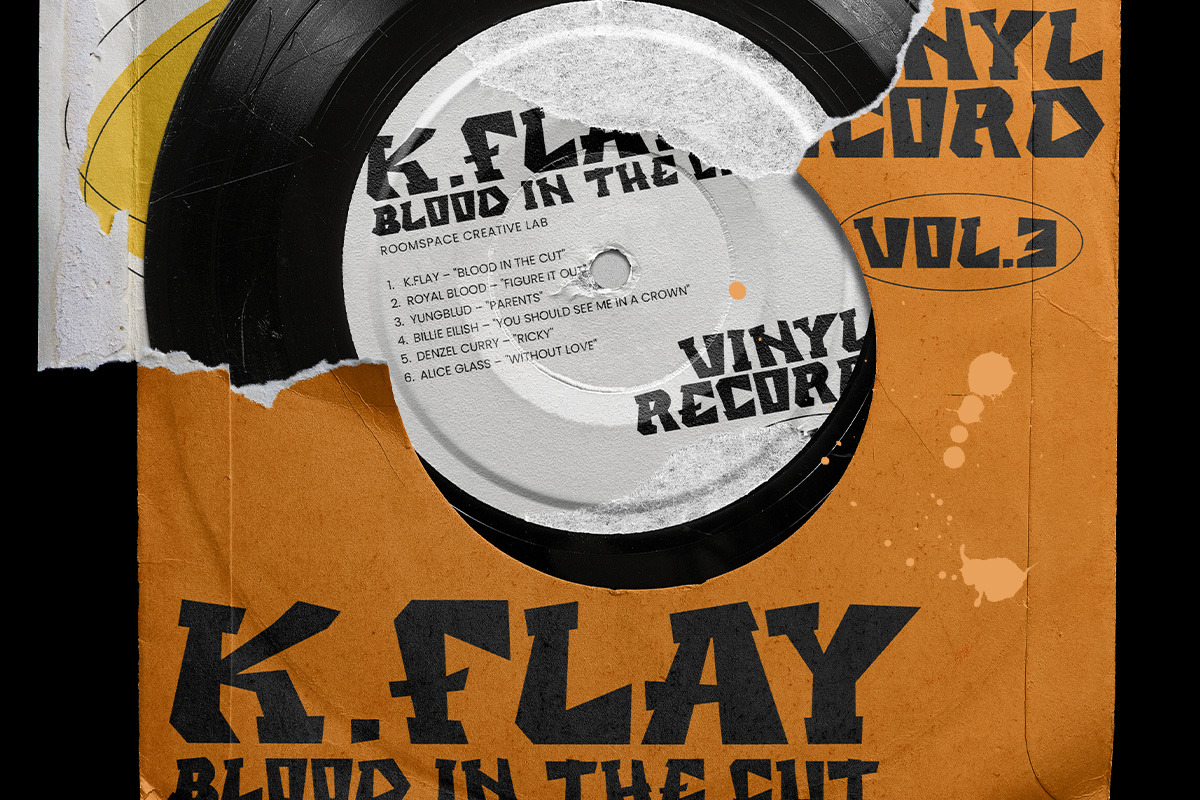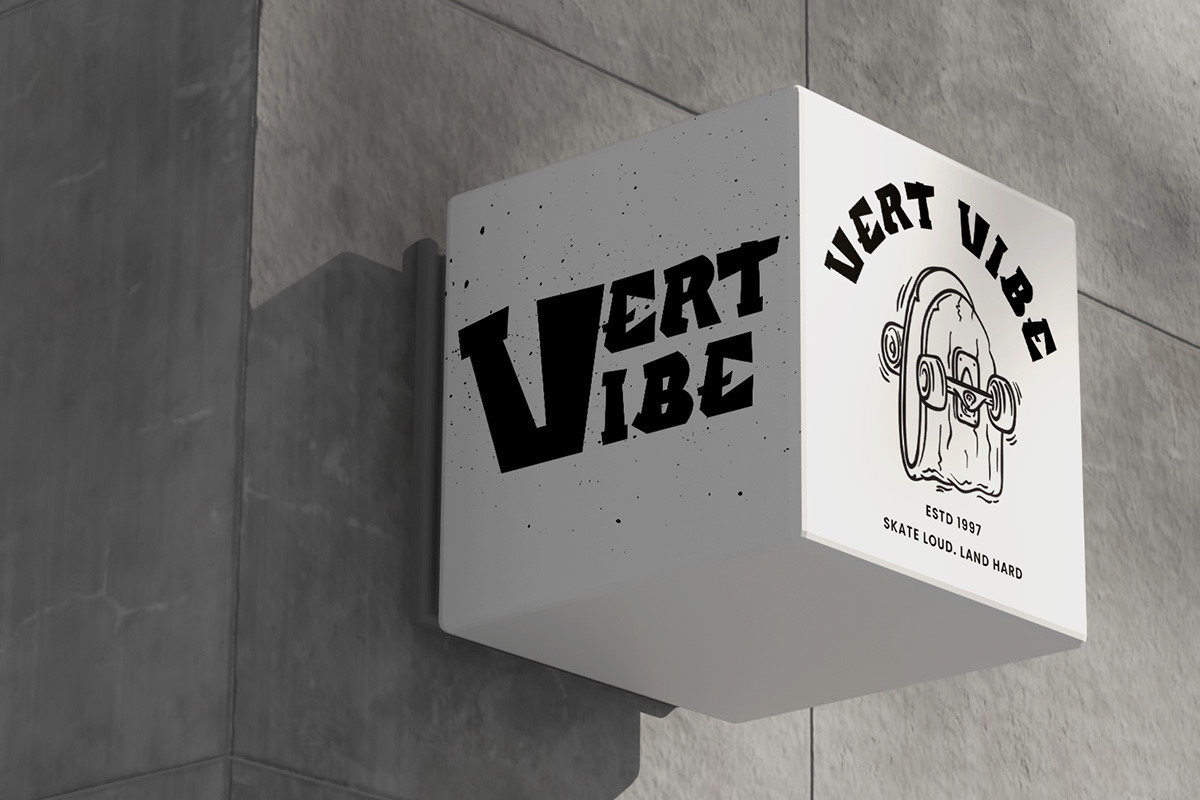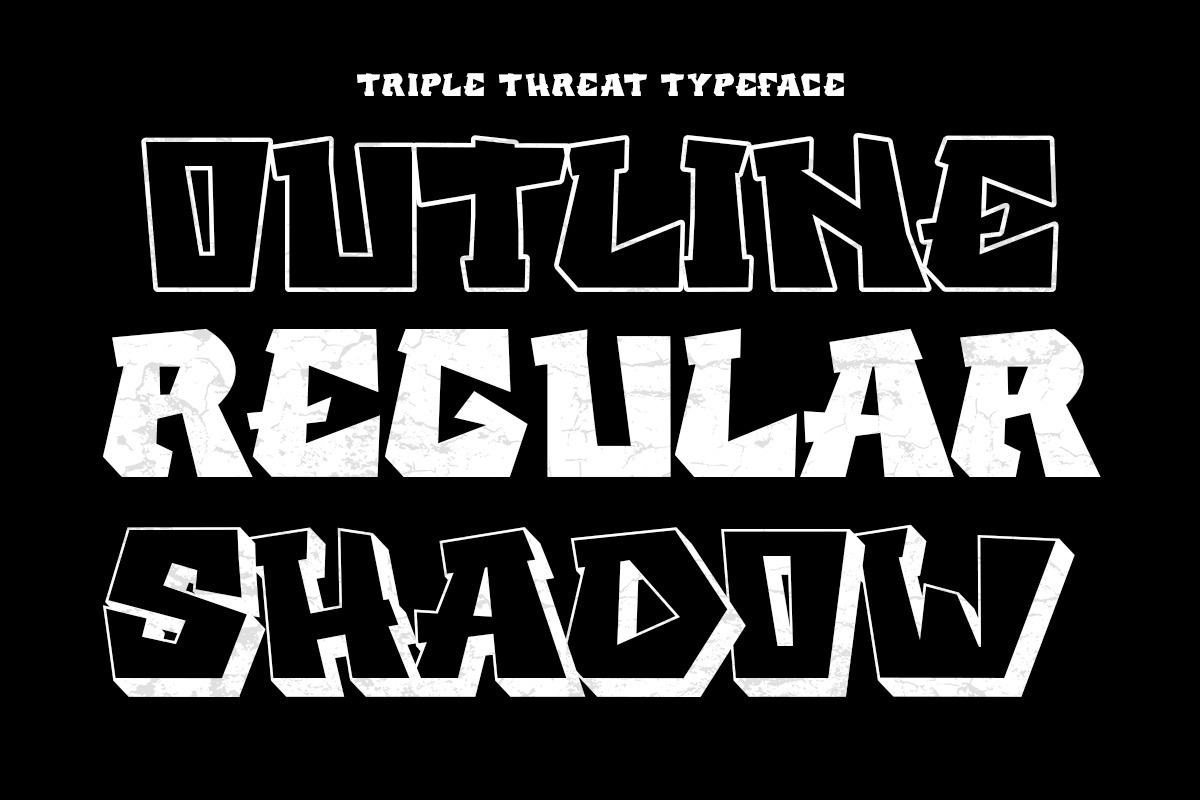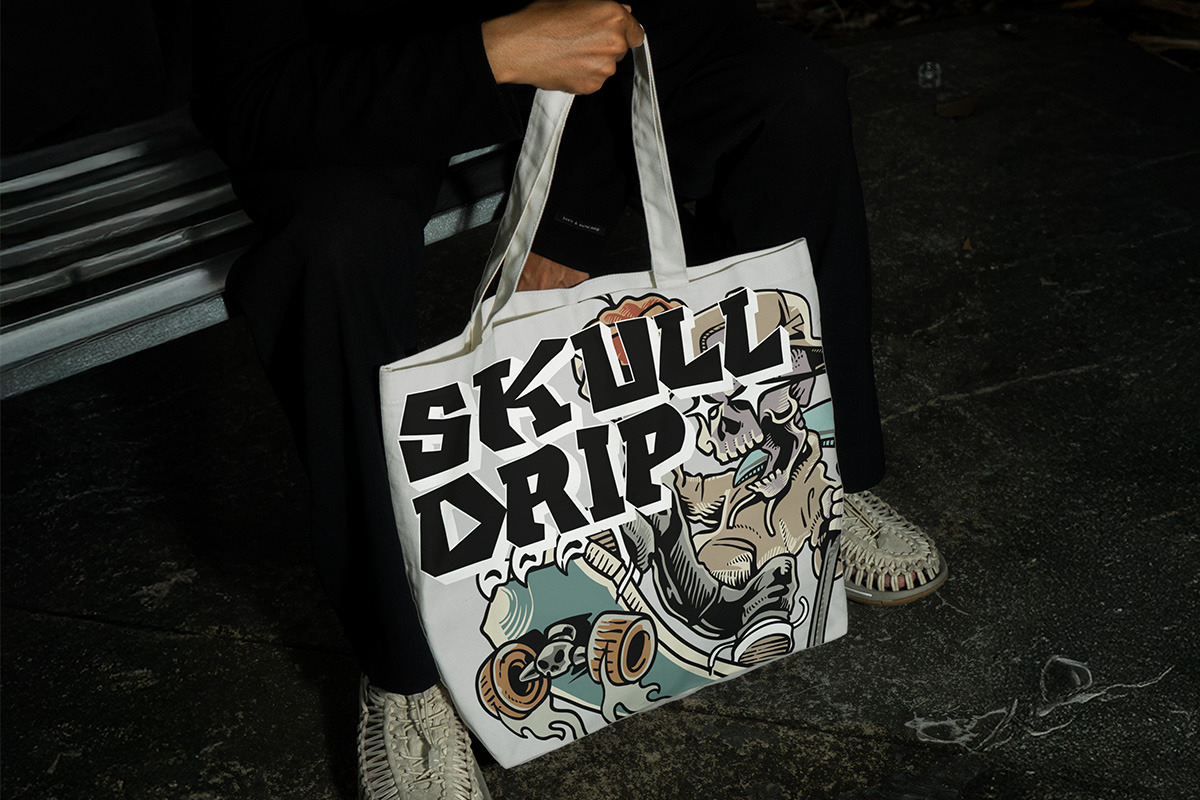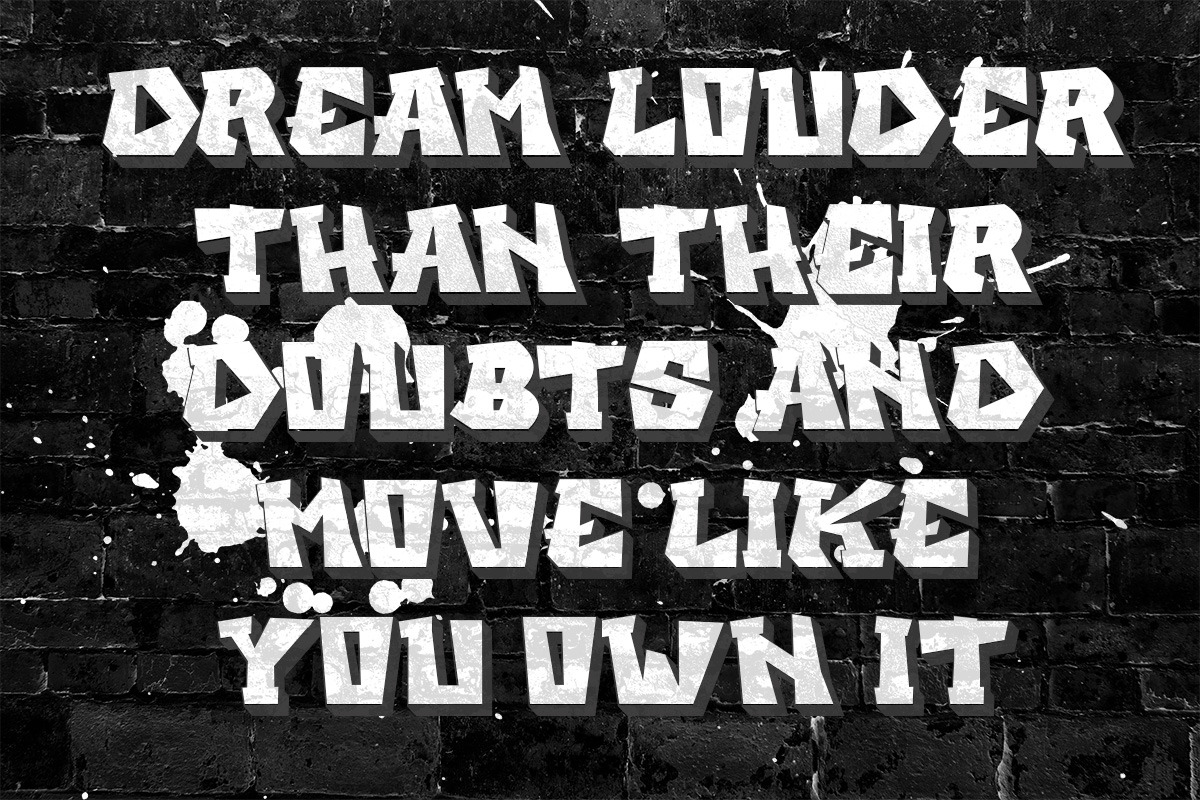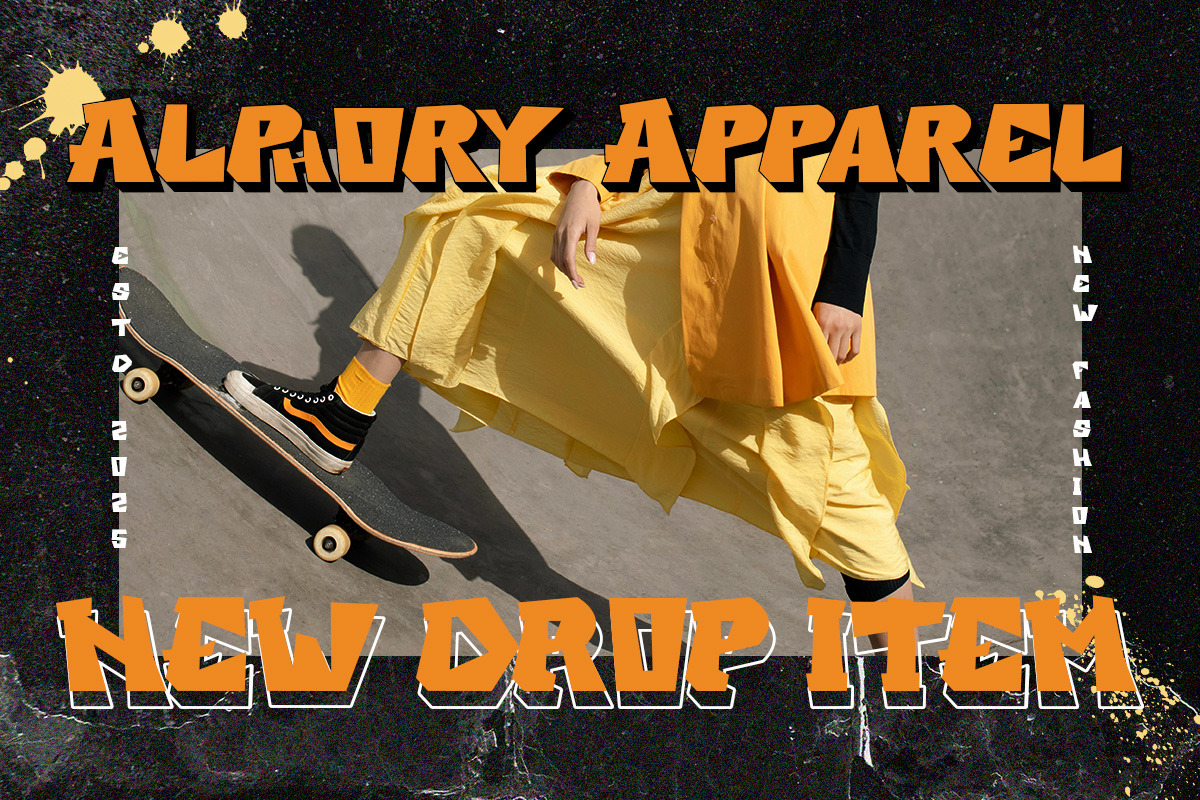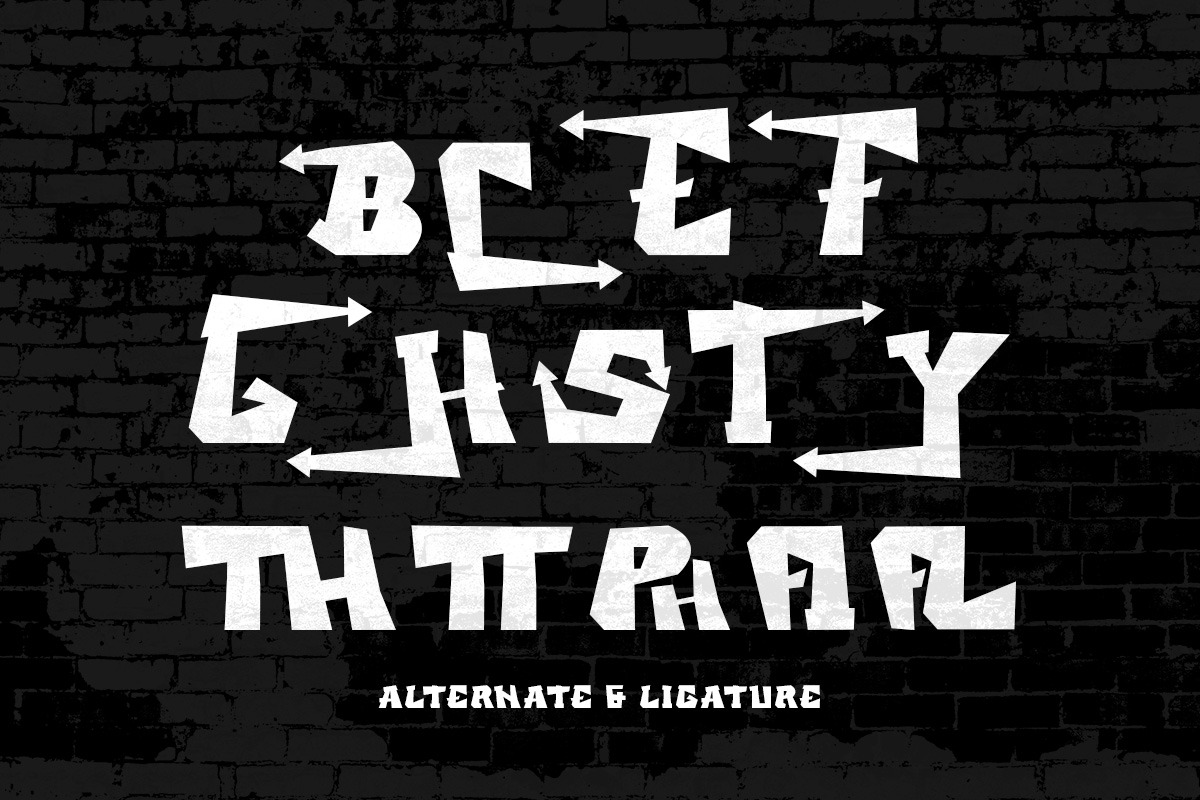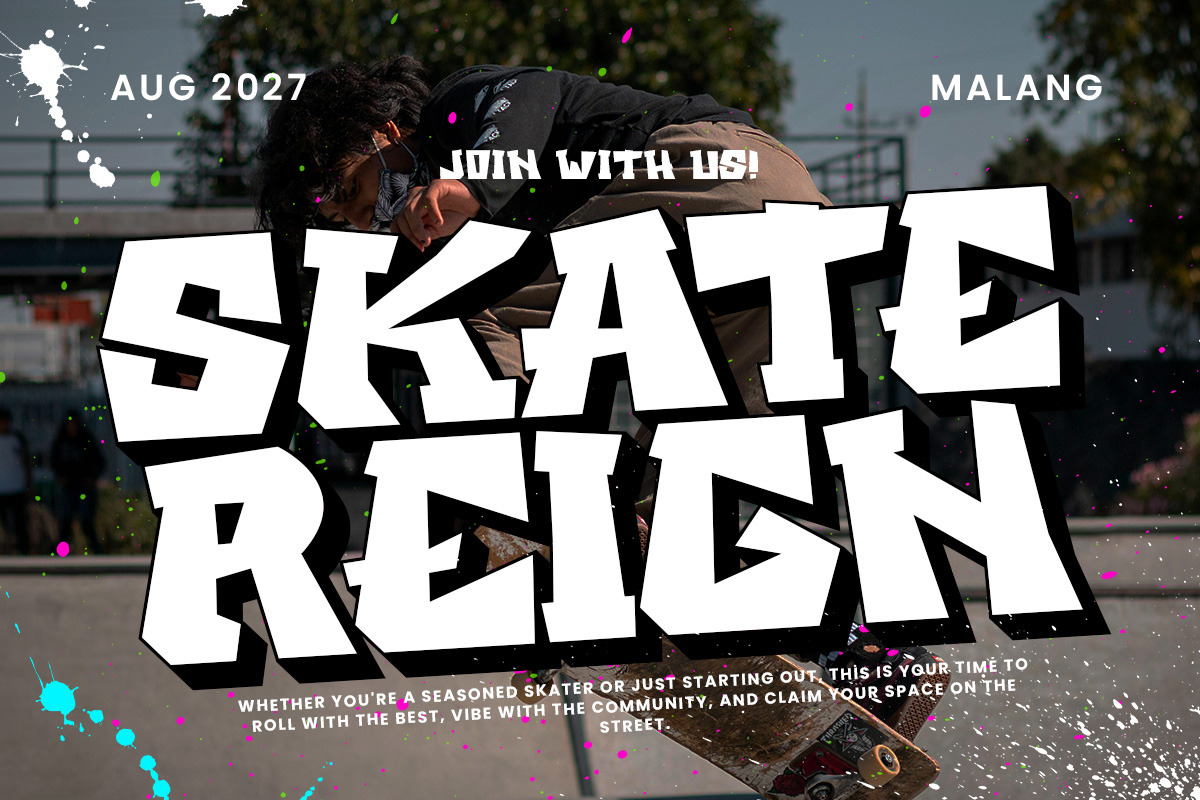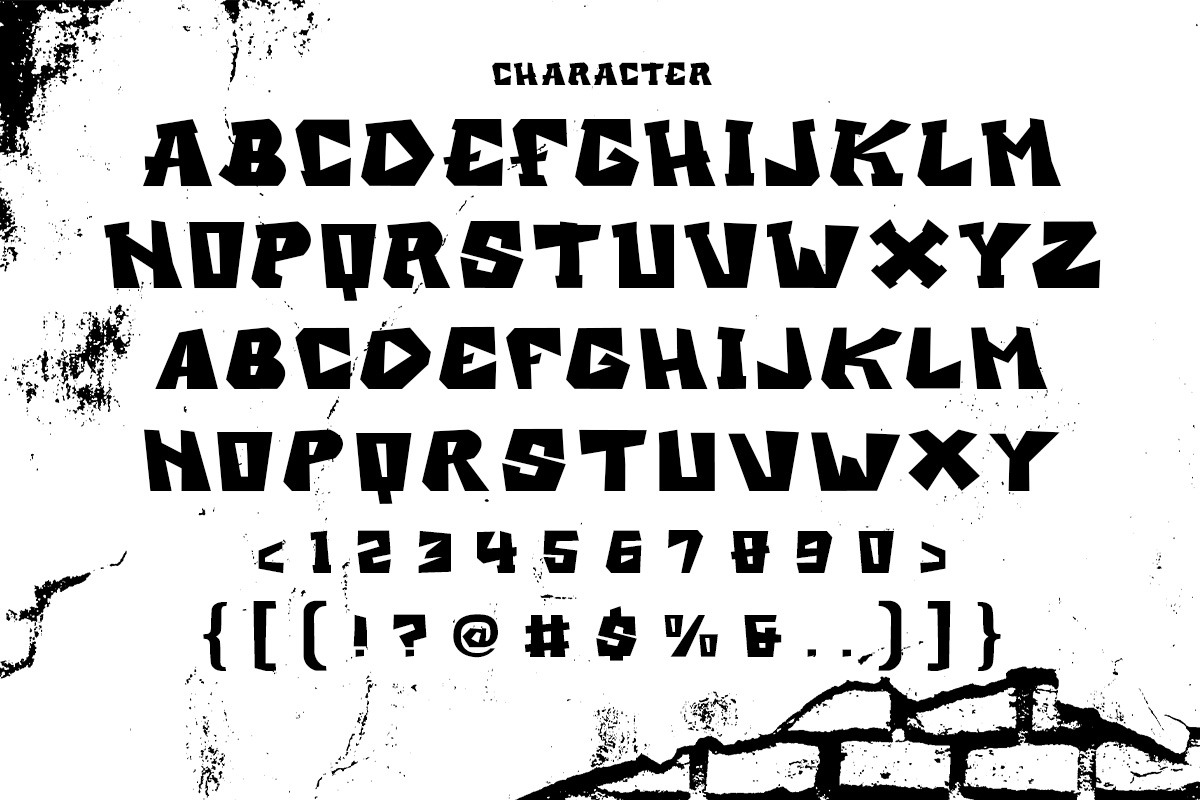
Brexh - Graffiti Sign Street
Brexh is a bold graffiti-inspired display font with raw energy — built for urban, loud, fearless design that fuses blackletter structure with raw, streetwise energy. Designed to stand out, its sharp angles, bold weight, and rebellious edge make it perfect for modern urban design.
Whether you’re working on a poster, event branding, music visuals, or bold headlines, DBrexh adds punch and personality. Its graffiti marker influence gives every letter impact while staying clean and readable.